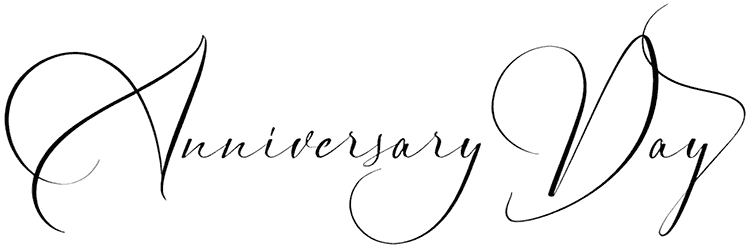
Anniversary Day Font
If you really want to impress the audience even at the first glance with the quality of your content, then a magical script font, the same as the Anniversary Day, can be your savior.
This lovely wedding font comes with very delicate and crooked letters, thus it can help you boost the efficiency of your artwork. Aside from not supporting numbers, it can be insanely matched with illustrations, book covers, stickers, web page templates, or social media posts.